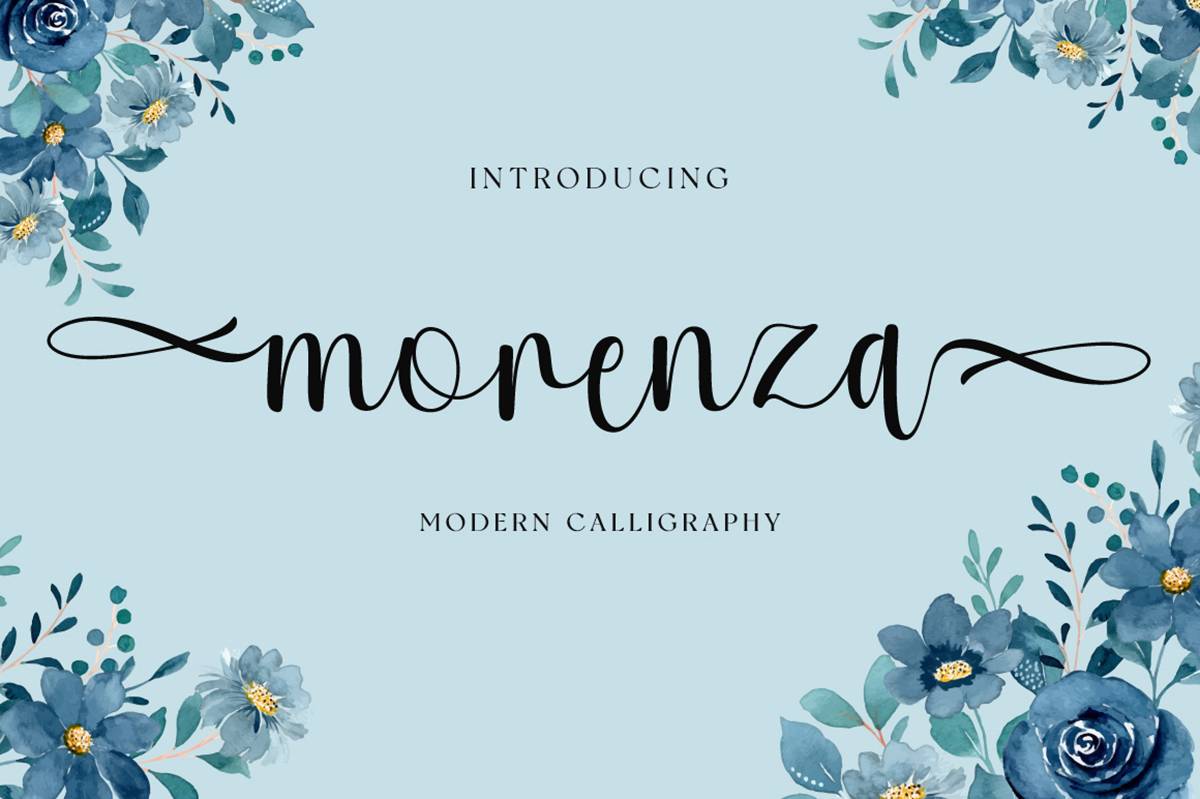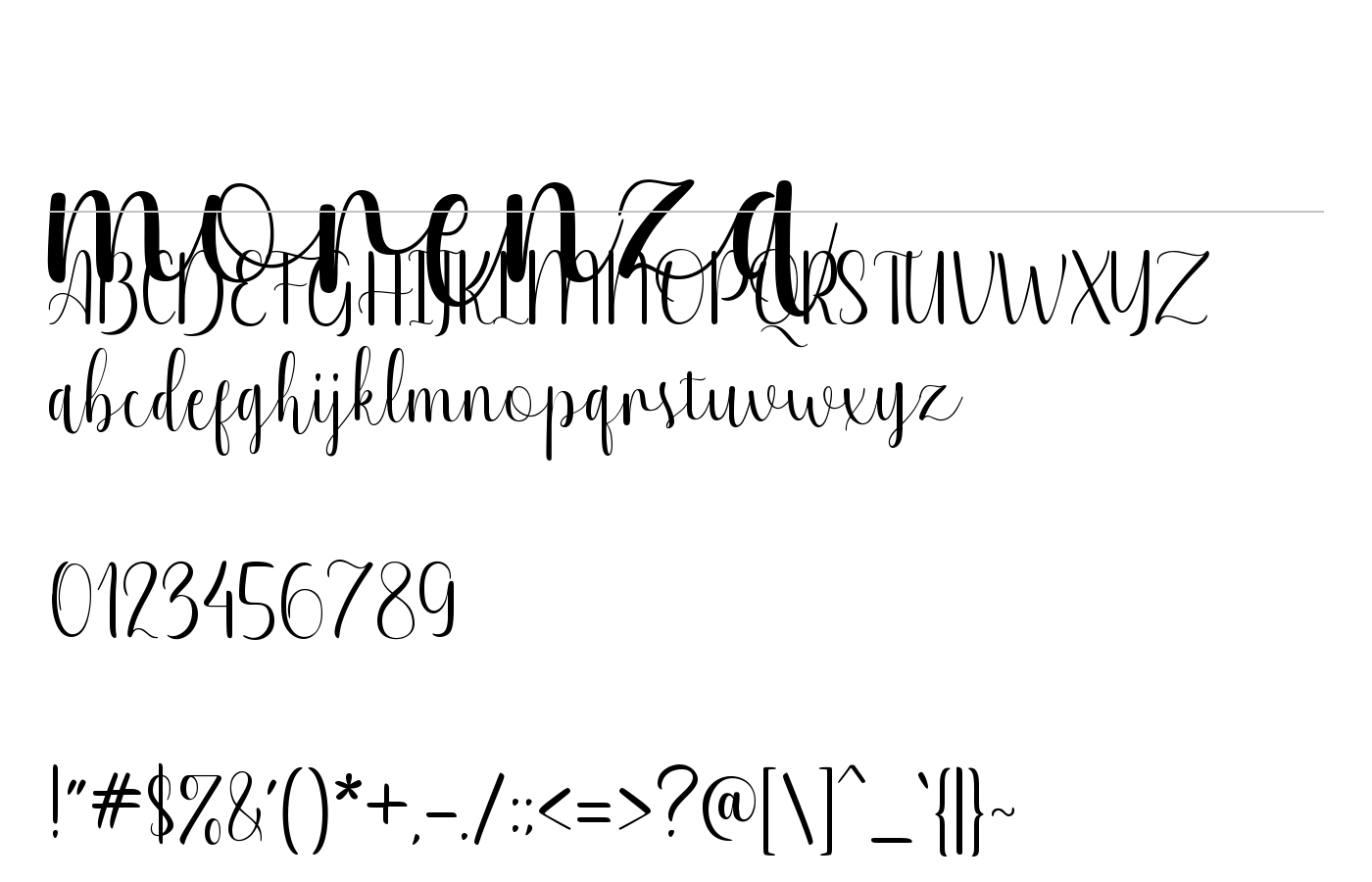
Morenza is a delicate, elegant script font featuring slender, flowing letterforms with a handwritten calligraphic feel. Its thin strokes and tall x-height give it a graceful, airy appearance, making it perfect for stylish invitations, feminine branding, and sophisticated editorial designs. This font adds a touch of refined charm wherever a soft and artistic mood is desired.
Morenza Font
About Morenza Font